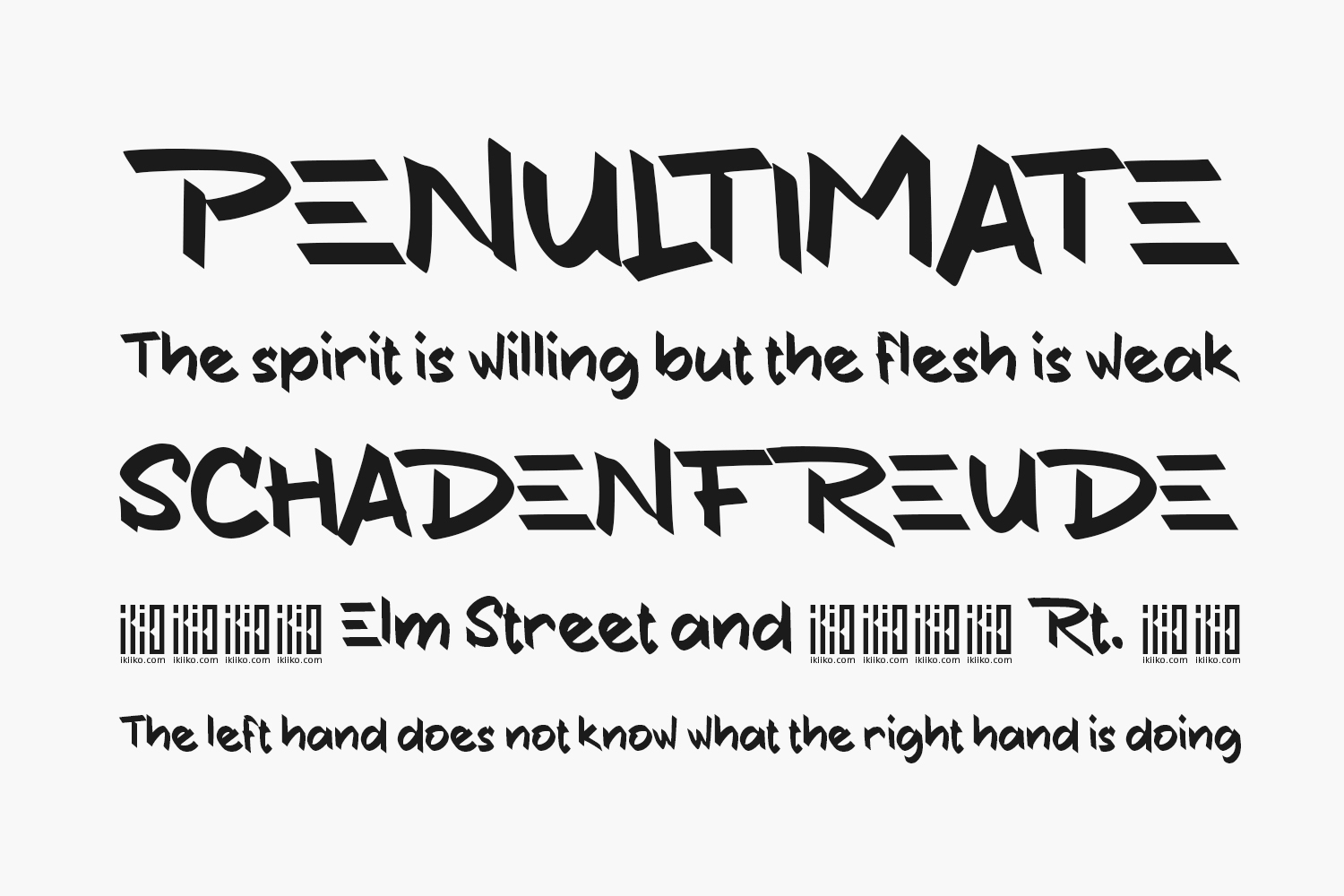
New Kids Crew Free Font is a cool and urban styled display font. New Kids Crew Free Font was designed by Ikiiko Type is a demo and free for personal use only. Please purchase the full version for commercial use.